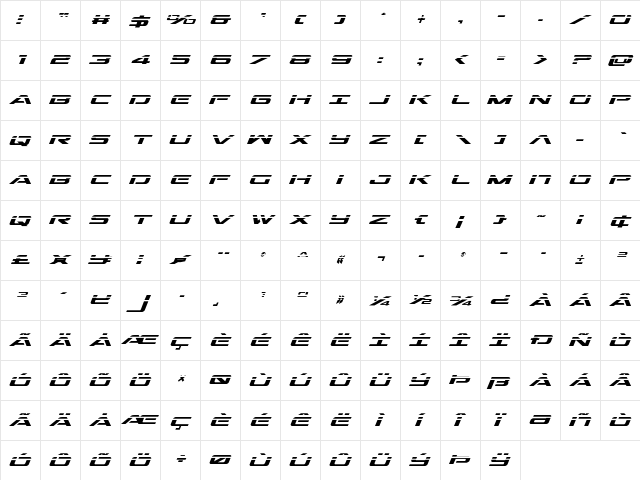
Outrider Laser Italic Italic Font Preview
Outrider Laser Italic Italic
Outrider Laser Italic Italic Font Details
Design Context for Outrider Laser Italic Typeface
Outrider Laser Italic is a composed and adaptable typeface that performs quietly and consistently across a wide range of design contexts. The dynamic lean of this cut emphasises speed and emphasis in any layout.
Pro Tip: Use Outrider Laser Italic for emphasis, pull quotes, and subheadings where its slanted energy can add rhythm to the layout.